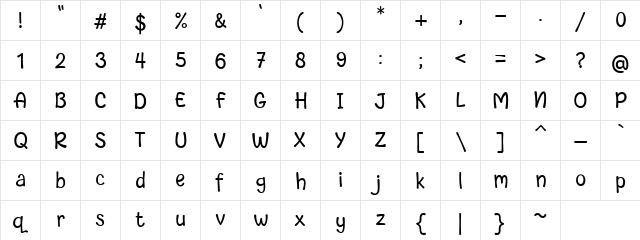
Cute Aurora Regular
Design Context for Cute Aurora Typeface
Cute Aurora offers clean, dependable letterforms without strong stylistic allegiance, making it a practical choice for designers who need flexibility.
Pro Tip: Pair Cute Aurora with a font of contrasting weight or personality to build a more expressive typographic hierarchy.